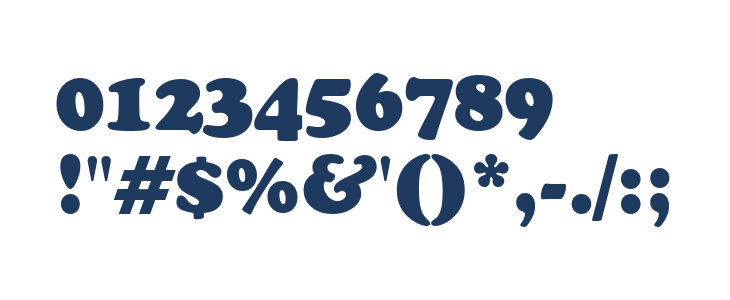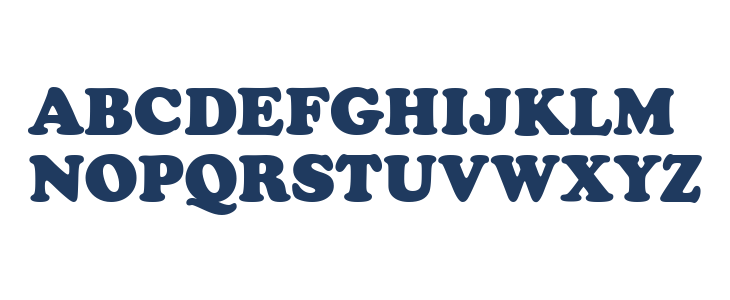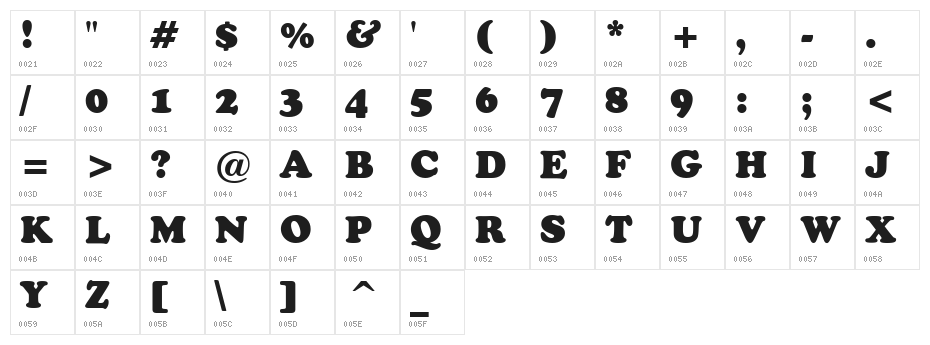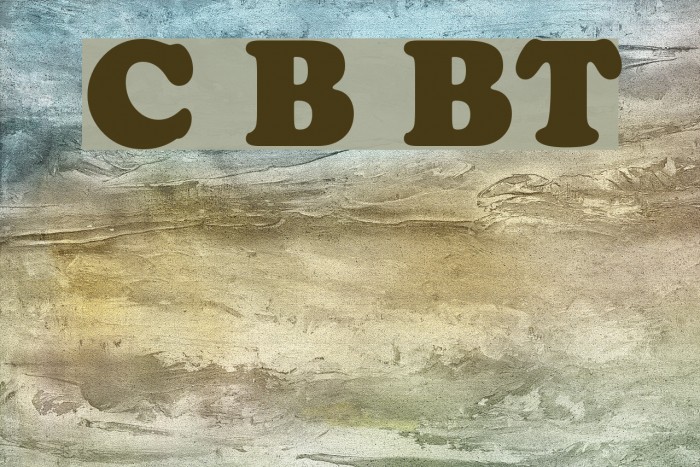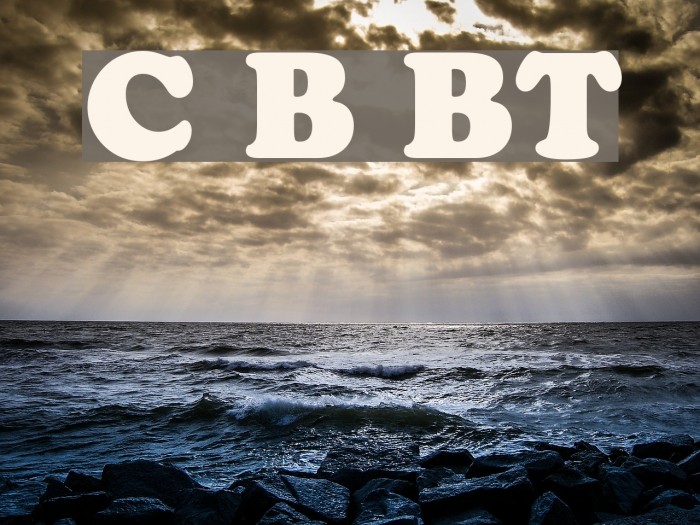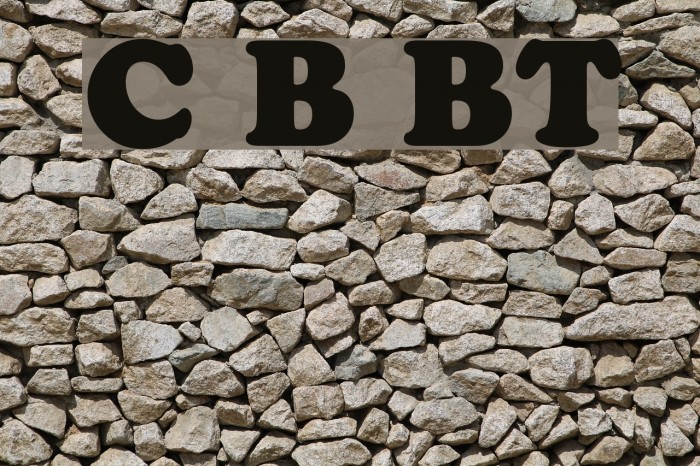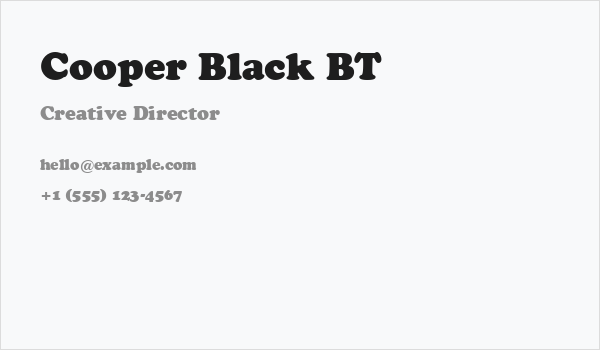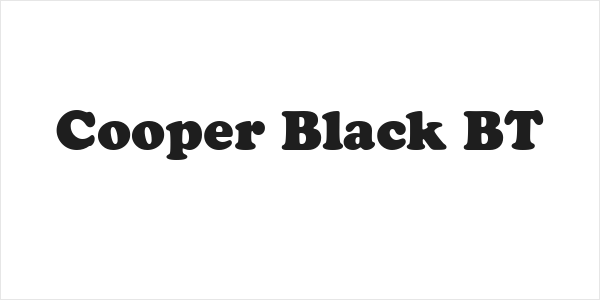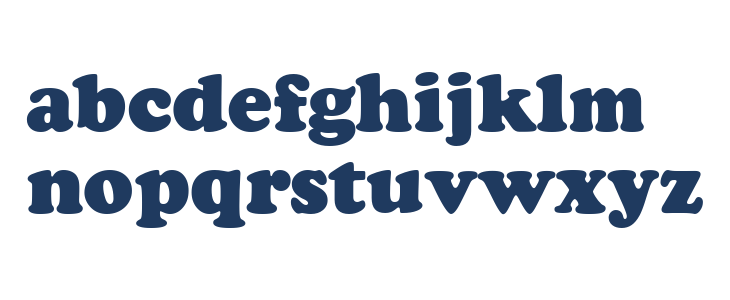
Cooper Black BT Font
Cooper Black BT Description
This font is characterized by its bold, rounded serifs and thick strokes, giving it a strong and friendly appearance. The letters are wide and have a playful, retro feel, reminiscent of early 20th-century advertising and signage. The curves are smooth and exaggerated, contributing to its distinctive, approachable style. The font maintains a consistent weight throughout, ensuring readability while adding a touch of whimsy. It is well-suited for display purposes, where its boldness can make a significant impact. The numbers and special characters share the same bold and rounded characteristics, ensuring uniformity across all glyphs.
Overall StyleVintage
Proposed ProjectsIdeal for vintage-themed posters, branding, packaging, and headlines that require a bold, friendly touch.